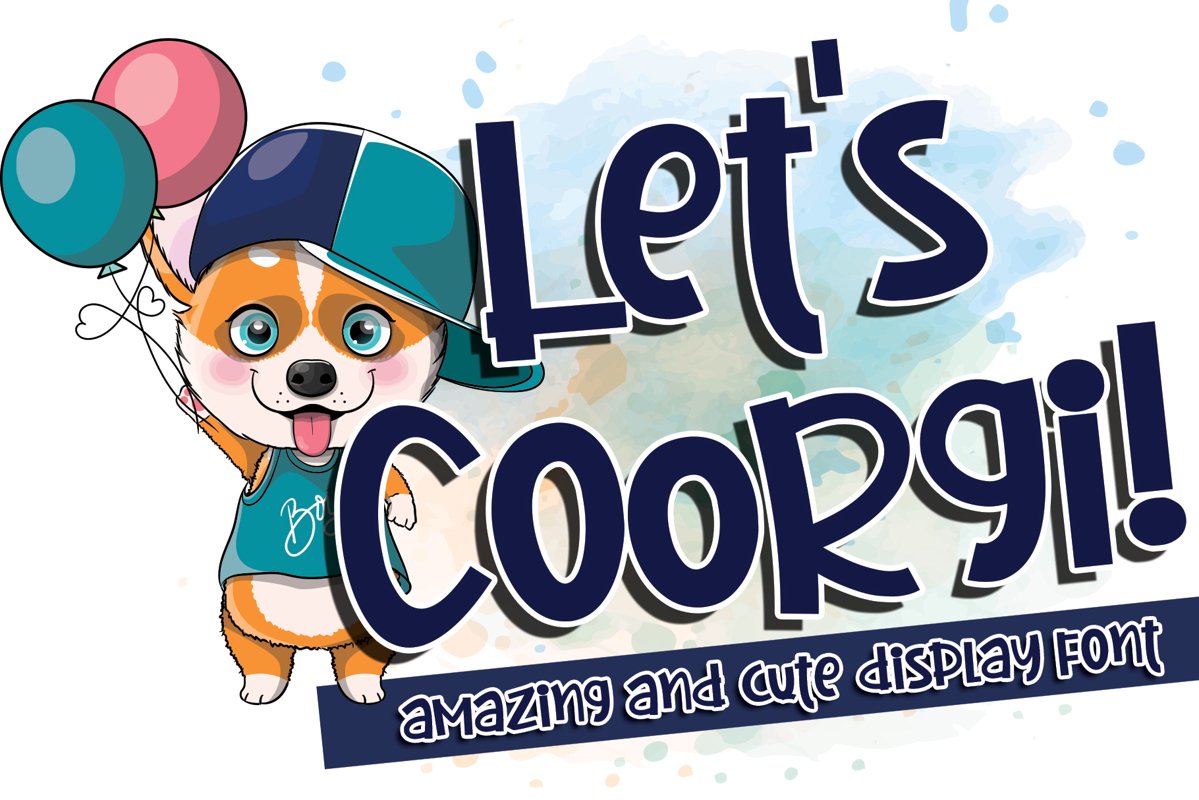
Let's Coorgi!
Let’s
Coorgi! It is an amazing and cute display font. This font will look outstanding
in any context, whether it’s being used on busy backgrounds or as a standalone
headline! This display font is the perfect choice for making original and
outstanding designs. This font is PUA encoded which means you can access all of
the cute glyphs with ease! It also features a wealth of including ligatures.